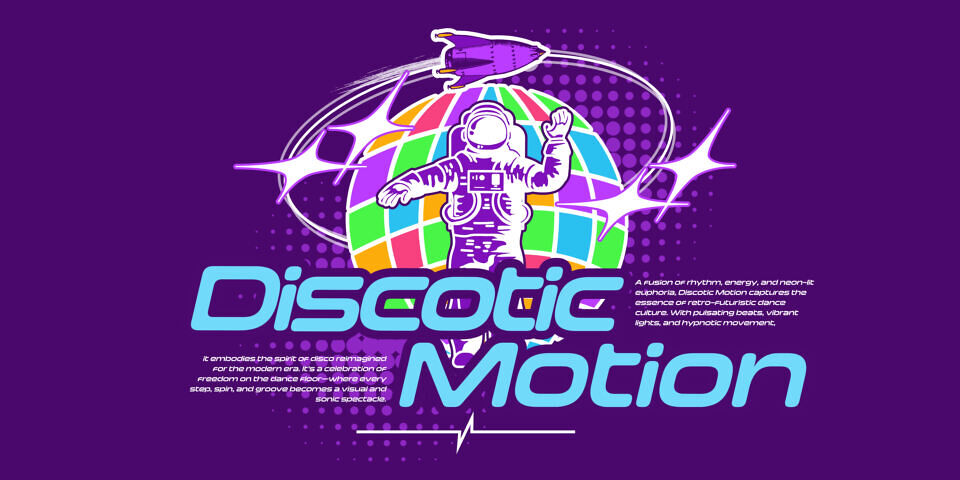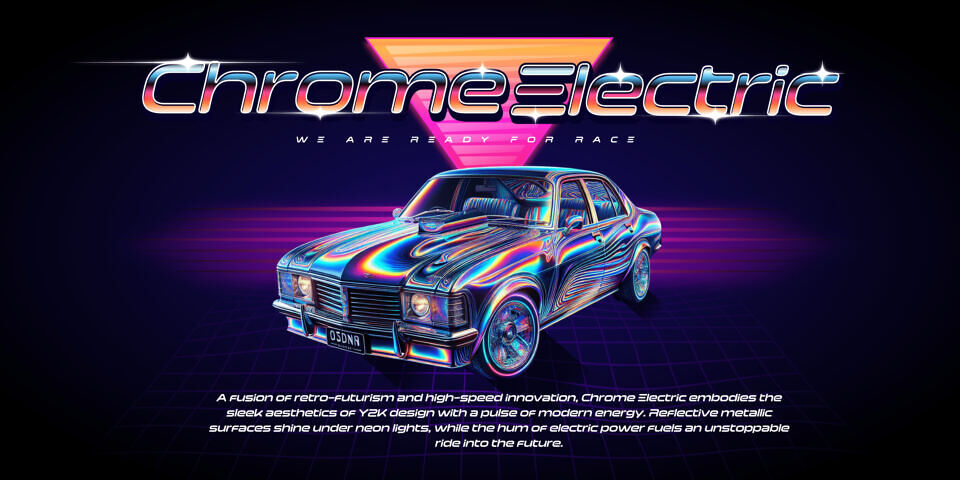
Lighting Lettering is a font that zips across the page! With its speedy italic design and rounded square look, Lighting Lettering injects a sense of modern urgency. Sports branding and tech products, or even the titles of a high-octane racing game, are some of its uses.
The font is built with advanced OpenType functionality and guaranteed top-notch quality, containing stylistic and contextual alternates, ligatures and more automatic and manual features; all to give you full control and customizability.